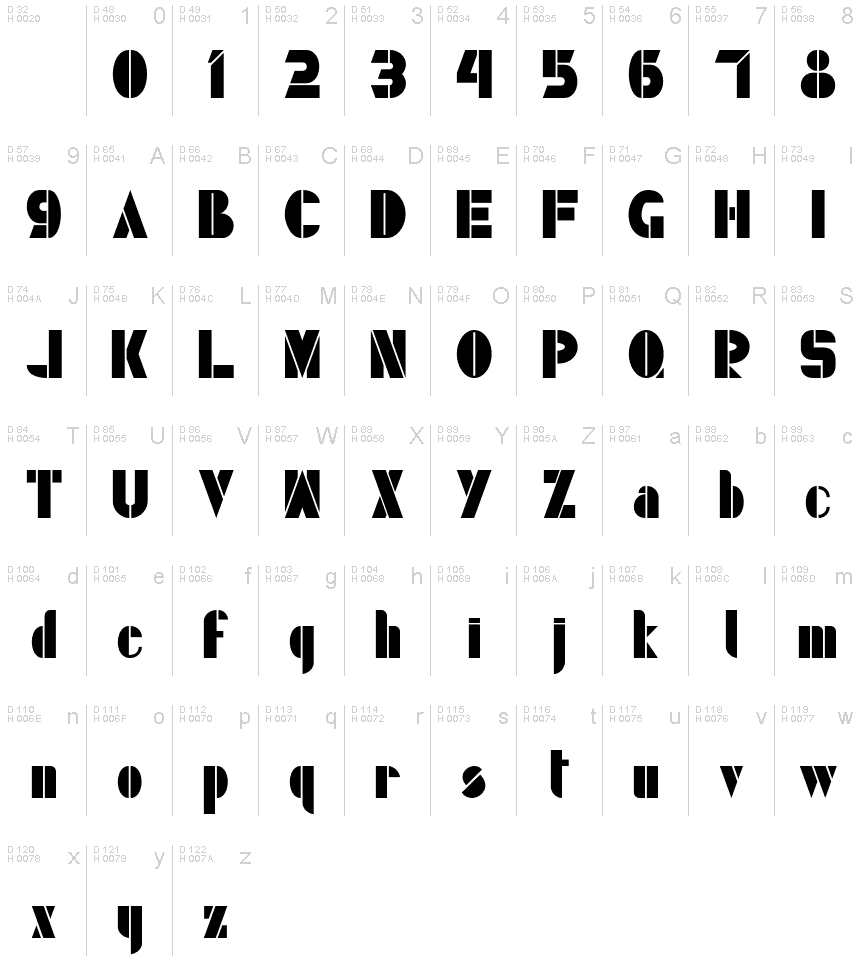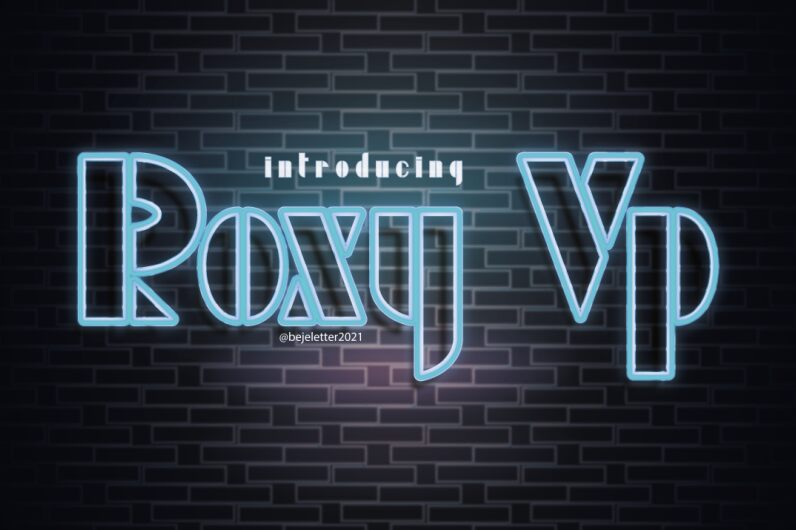
Roxy Vp Regular
Roxy Vp is a bold stencil display font designed by bejeletter. Its sharp edges and sleek letterforms make it suitable for projects requiring a modern, edgy look, like logos, posters and t-shirt designs.